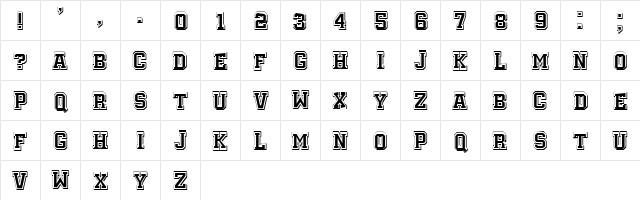
Academy Filled 3D Regular Free Font
Academy Filled 3D Regular
Complete Academy Filled 3D Regular glyph index. Displaying only characters natively supported by Academy Filled 3D Regular font.
Design Context for Academy Filled 3D
Academy Filled 3D is a composed and adaptable typeface that performs quietly and consistently across a wide range of design contexts.